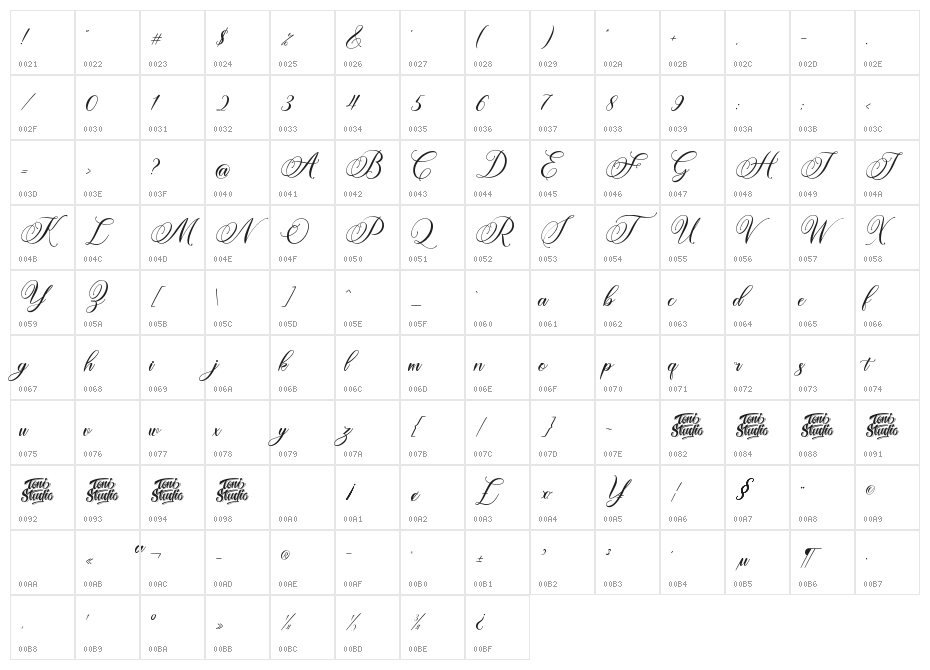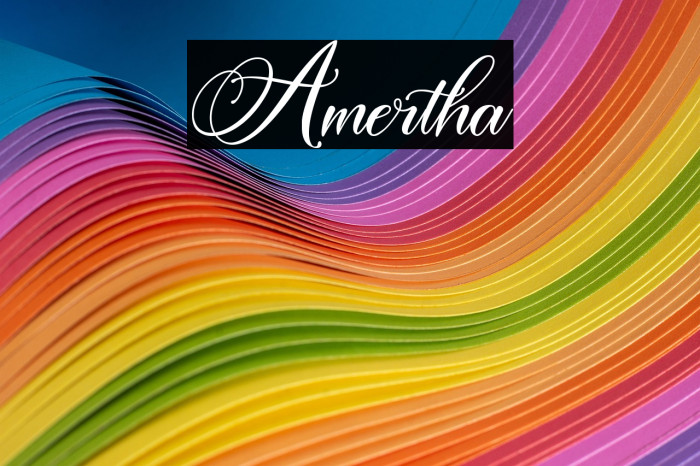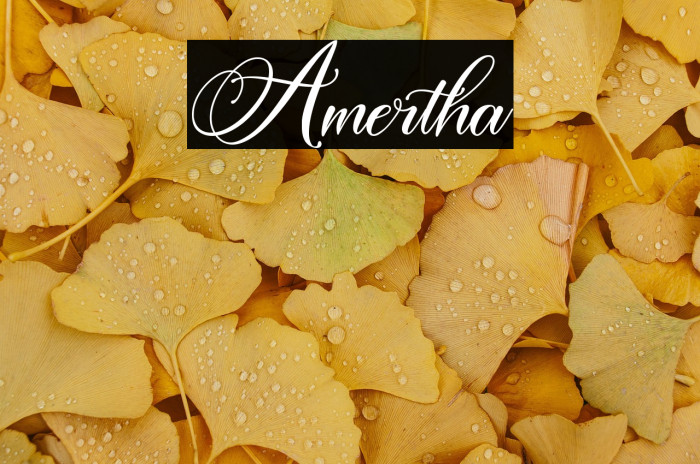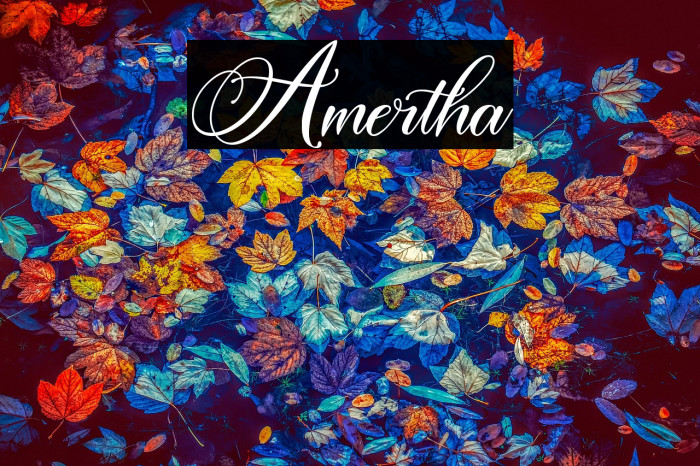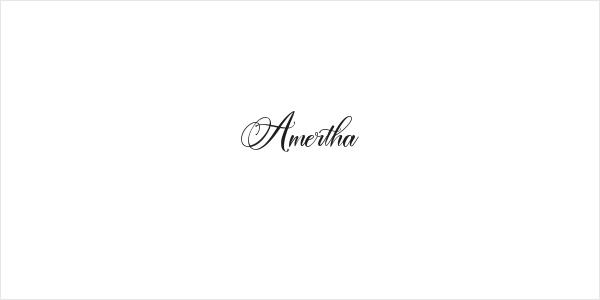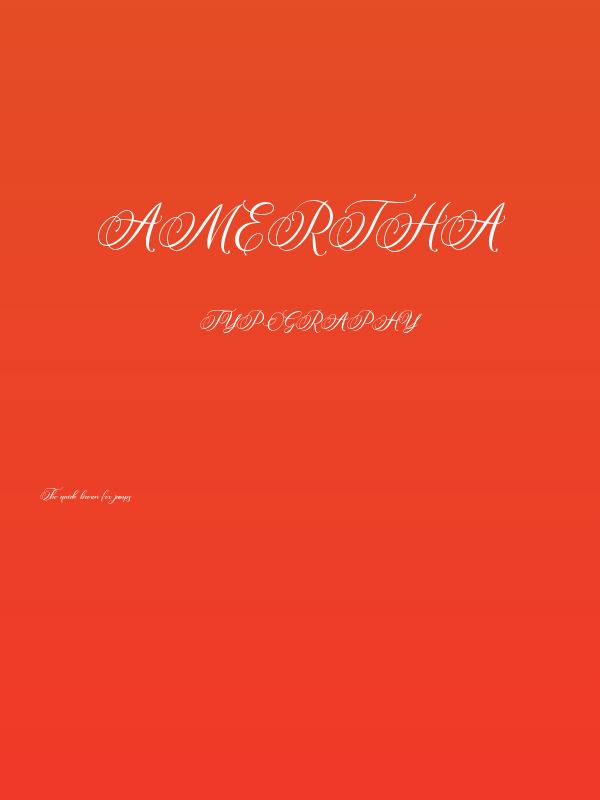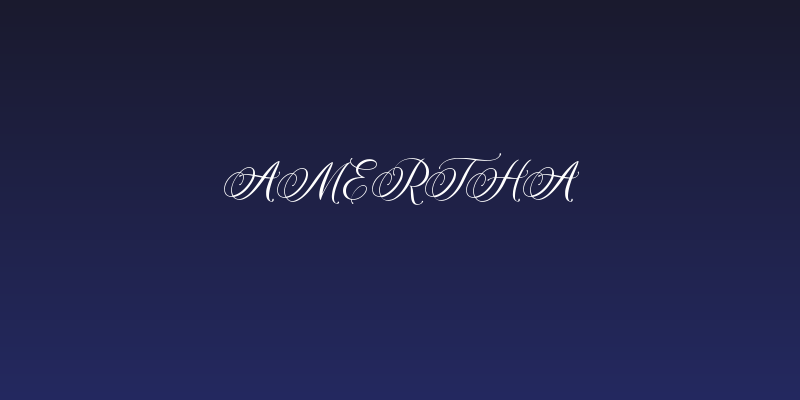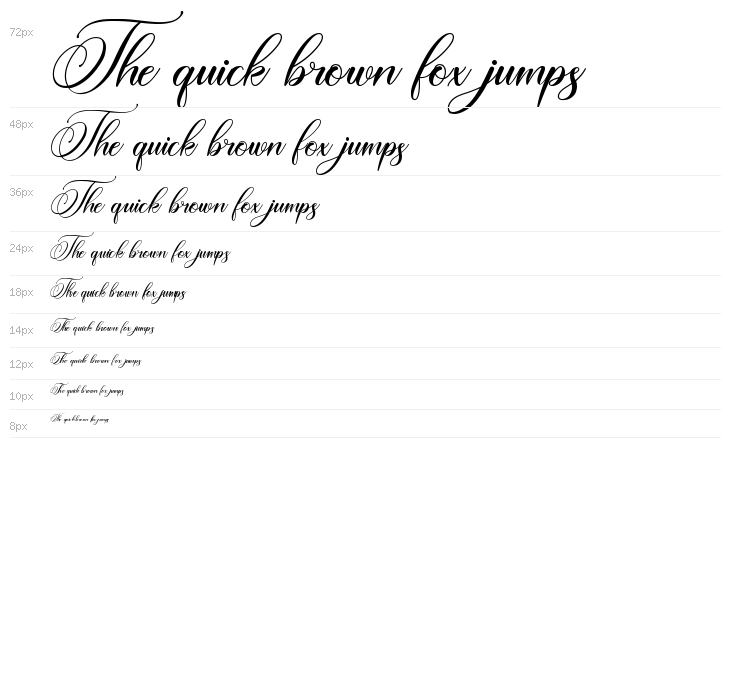
Amertha Font
Amertha Description
This elegant script font features a flowing, cursive style with intricate loops and flourishes, giving it a sophisticated and artistic appearance. The uppercase letters are particularly ornate, with elaborate swirls that extend from the main strokes, creating a sense of movement and grace. The lowercase letters maintain a more restrained elegance, with smooth, connected strokes that enhance readability while retaining the font's decorative charm. The numerals and special characters are designed to complement the overall aesthetic, featuring similar curves and embellishments. This font is ideal for projects that require a touch of elegance and sophistication, such as wedding invitations, formal event programs, and luxury branding.
| Overall Style | Elegant, Decorative |
| Use Case | Headlines, Invitations, Branding |
| Proposed Projects | Wedding invitations, formal event programs, luxury branding, artistic posters. |